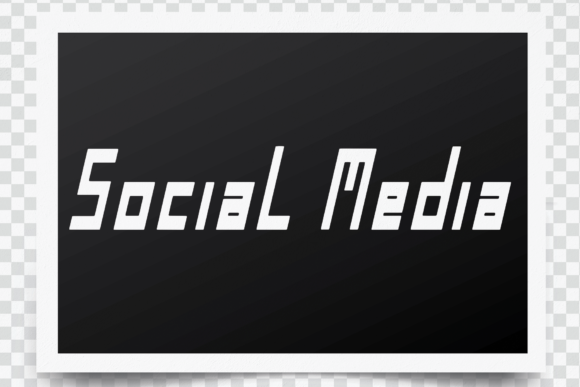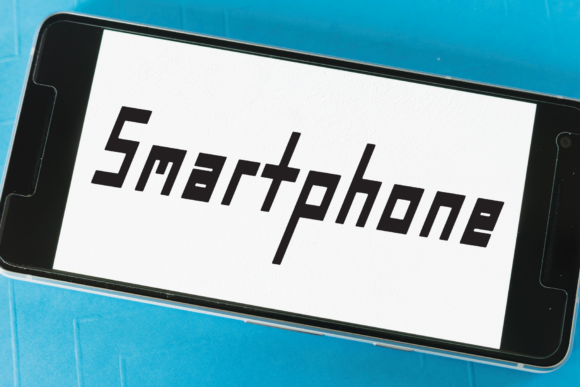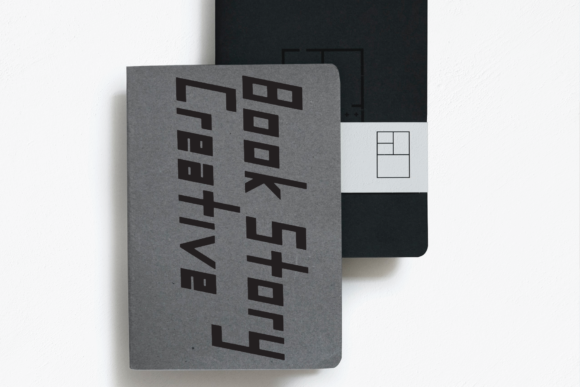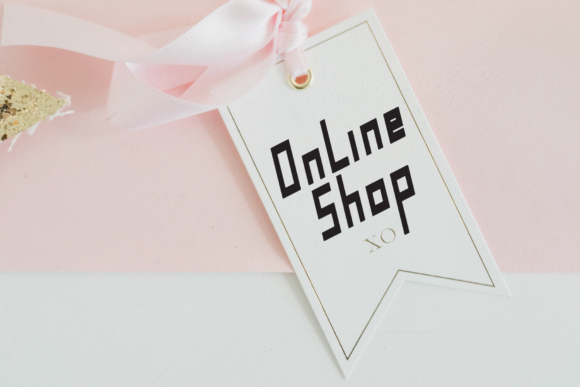
Introduction to Smart Sport Font
Do you remember that moment when you finally found the perfect font to elevate your design project? It’s like a spark of creativity hits you, and you know you’re onto something special. For designers, finding the right font can be the difference between a good design and a great one. That’s why we’re excited to introduce you to the Smart Sport Font, a cool, bold, and robotic display font that’s sure to make your creative project stand out.
With its high-quality design and transparent background, the Smart Sport Font is a valuable resource for designers looking to add a touch of modernity to their work. Whether you’re creating a poster, flyer, or print, this font is sure to impress. And the best part? It’s available for free download, making it an accessible design resource for designers of all levels.
Key Features of Smart Sport Font
- High-quality vector graphics for crisp and clear display in various sizes.
- Comes with a transparent background, making it ideal for use on any design project.
- Features a clean and modern design, perfect for creative projects in the sports and fitness industry.
Honest Review: Smart Sport Font
I recently had the chance to try out the Smart Sport Font, and I must say it’s been a great addition to my design projects. One of the things that stood out to me was the high quality of the font, which is perfect for any creative project that needs a clean and modern look.
- ✨ High quality design that’s perfect for creative projects
- ✨ Transparent background, making it easy to use across multiple projects
- ⚠️ Limited character set, which may not be suitable for all design needs
- ⚠️ Not ideal for projects that require a lot of bold or italic text
Overall, I’m really impressed with the Smart Sport Font. It’s a great addition to my design arsenal, and I’m looking forward to using it in future projects. If you’re a designer looking for a high-quality, free font, I’d definitely recommend checking it out.
The Smart Sport Font is a high-quality, free download design resource ideal for creative projects requiring a bold and modern aesthetic. Its transparent background makes it versatile for various applications.
To get the most out of the Smart Sport Font, experiment with different font sizes, colors, and combinations. You can also pair it with other fonts or graphics to create a unique design.
The Smart Sport Font is ideal for sports-themed designs, such as:
- Sportswear logos and branding
- Sport event graphics and posters
- Sport-themed social media posts and ads